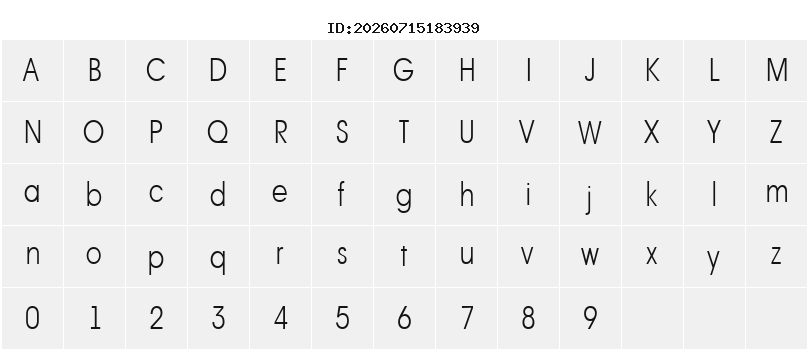
a_AvanteLtNr Preview
• Font Name: a_AvanteLtNr
• Font Style: Thin
• Font ID: Macromedia Fontographer 4.1 a_AvanteLtNr Thin
• Full Font Name: a_AvanteLtNr Thin
• Version: Macromedia Fontographer 4.1 10.11.97
• PostScript Name: AAvanteLtNrThin
• Character Count: 193
About a_AvanteLtNr.ttf
a_AvanteLtNr.ttf is a modern, elegant sans-serif font designed for ultimate readability and visual harmony. Perfect for branding, headlines, web design, and print materials.